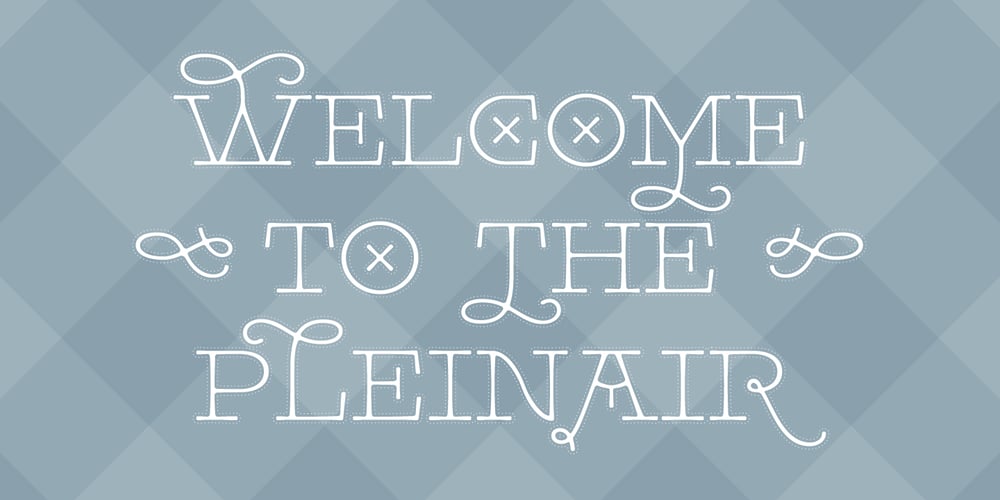
Pleinair Font Family was designed by Valery Zaveryaev and published by Gaslight. Pleinair contains 1 styles and family package options. Pleinair – all caps serif font with alternatives on lower case. Besides Pleinair have two Stylistic sets for two-tier typesetting. Also Pleinair have some decoratives and swashes characters.